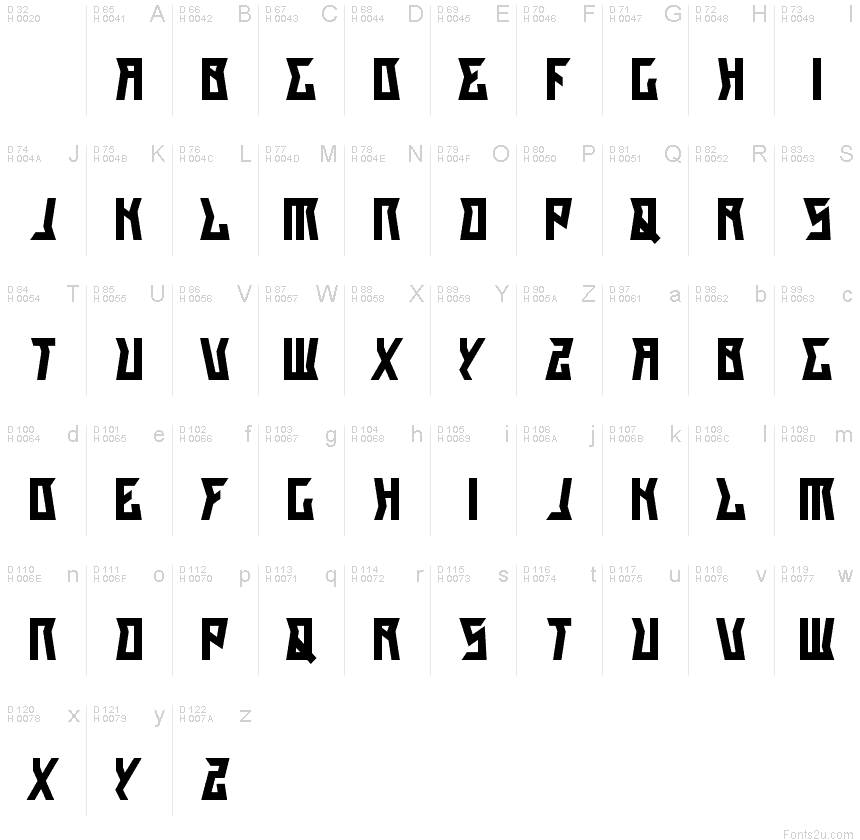
Gilang Cinta Sabrina by Gilang Purnama Jaya is a free angular techno display font with an imposing, machine-cut silhouette. Tall letters shift between broad slabs and pinched joints, with sharp wedges carving deeply into the forms. Uneven widths and abrupt inner cuts make the alphabet look custom engineered rather than mechanically uniform.
A science-fiction game interface is its strongest setting, and the same hard-edged construction suits electronic music posters, action-film titles, and esports merchandise. Those fractured shapes can become part of a gaming studio or technology brand identity, echoing armor panels, circuitry, or futuristic architecture across logos and product graphics.
Gilang Cinta Sabrina